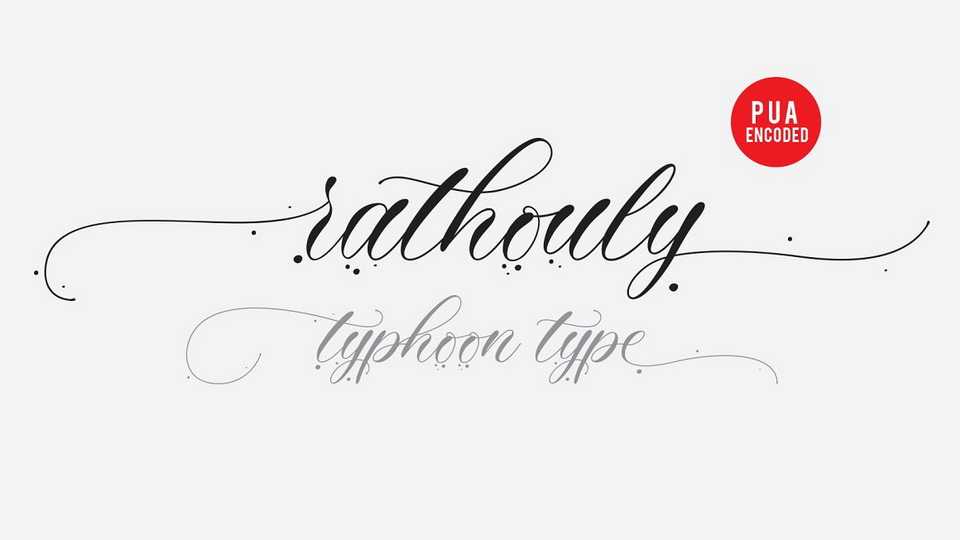
Download Rathouly font, amazingly beautiful calligraphy script with charming swashes. Rathouly is perfect for logos, name tag, advertising, product packaging, clothing, social media & greeting cards.
Designer: TyphoonType